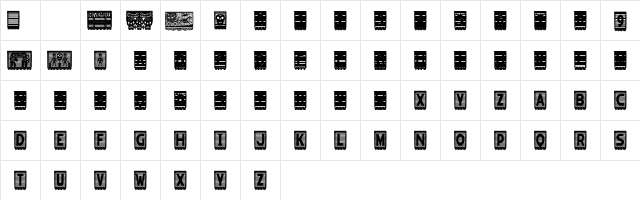
Complete papel picado Regular glyph index. Displaying only characters natively supported by papel picado Regular font.
papel picado is a composed and adaptable typeface that performs quietly and consistently across a wide range of design contexts.